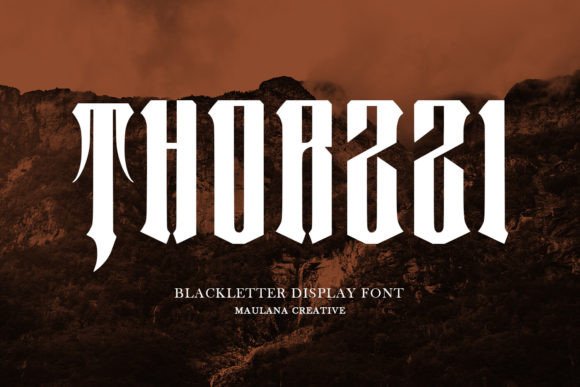
Thorzzi: A Bold Blackletter Font for Editorial Impact
There’s a moment in editorial design when you’re choosing the right font to set the tone of a project. It’s not just about aesthetics—it’s about how the typeface will guide the reader, support the content, and reflect the brand or publication’s identity. Recently, I found myself in that exact situation while redesigning a lifestyle blog header. The goal was to create something visually striking yet readable, with a touch of vintage charm. That’s when I discovered Thorzzi, a bold and decorative Blackletter font that immediately captured my attention.
A Typeface with Personality
Thorzzi is a Blackletter font inspired by old-fashioned calligraphy, and it carries that dramatic flair with every letter. Its thick, contrasting strokes and intricate details give it a gothic feel that’s both timeless and expressive. What sets Thorzzi apart is its balance between being decorative and functional. While it’s undeniably ornate, it doesn’t overwhelm the text, making it suitable for more than just headlines.
I tested Thorzzi on a few different layouts, starting with a blog header. The result was immediate—Thorzzi added a sense of sophistication and character that felt authentic to the lifestyle brand’s aesthetic. It wasn’t just a font; it was a statement. The same held true when I used it as a pull quote in an editorial feature page. The dramatic weight of the letters made the quote stand out without overshadowing the surrounding text.
Editorial Uses and Visual Hierarchy
Thorzzi works best as a display font, whether it’s for titles, section headings, or decorative accents. In a digital magazine layout, I used it for the cover text and chapter openers. The font’s strong visual presence helped anchor the design, guiding the reader’s eye through the content. For a recipe ebook, I paired Thorzzi with a clean sans serif font for body copy, creating a contrast that enhanced readability without sacrificing style.
Its versatility extends to other formats too. In a wedding guide, Thorzzi served as a decorative element on the title page, adding a touch of elegance. For a printable planner, I used it sparingly in the headers and section dividers, ensuring it didn’t interfere with the user experience. Even in a coaching workbook, where clarity is key, Thorzzi was used only in the introduction and chapter titles, allowing the rest of the content to remain straightforward and easy to read.
However, it’s important to note that Thorzzi isn’t suited for dense paragraphs or small captions. Its expressive nature makes it less ideal for long-form content or formal reports where readability is paramount. That said, when used thoughtfully, it can elevate the overall design and reinforce the publication’s identity.
Font Pairing and Practical Considerations
When pairing Thorzzi with other fonts, it’s crucial to maintain a balance. I often pair it with a readable serif font like Garamond or a modern sans serif such as Montserrat for body copy. This creates a harmonious contrast that supports both visual appeal and legibility. For captions and navigation elements, a clean sans serif font like Lato or Roboto works well, offering a sharp and professional look.
For screen reading and mobile layouts, Thorzzi performs admirably, though it’s always wise to test it on various devices to ensure it remains legible at smaller sizes. When exporting to PDF or print, the font’s crisp outlines and consistent spacing make it a reliable choice for both digital and physical formats.
Conclusion
Thorzzi is more than just a premium font—it’s a tool that can shape the mood, structure, and identity of an editorial project. Whether you’re designing a newsletter header, a course PDF, or a printable planner, this Blackletter font offers a unique blend of elegance and expressiveness. Its ability to support visual hierarchy, enhance reader engagement, and align with brand identity makes it a valuable addition to any designer’s toolkit.